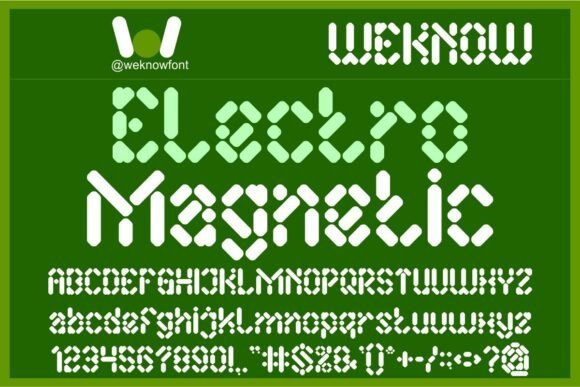
Introduction to Electro Magnetic Font
Electro Magnetic, a versatile fusion of technology and artistry, transforms into a waveform of creativity.
Marrying geometric structure with futuristic sentiments, this display font echoes both the high-tech rhythm of pixel-mosaic and the experimental wonder of sci-fi lettering Designed as stencil-segmented typography, it breathes new life into the neo-constructivist aesthetics by infusing digital nodes and mystic cyberglyphs.